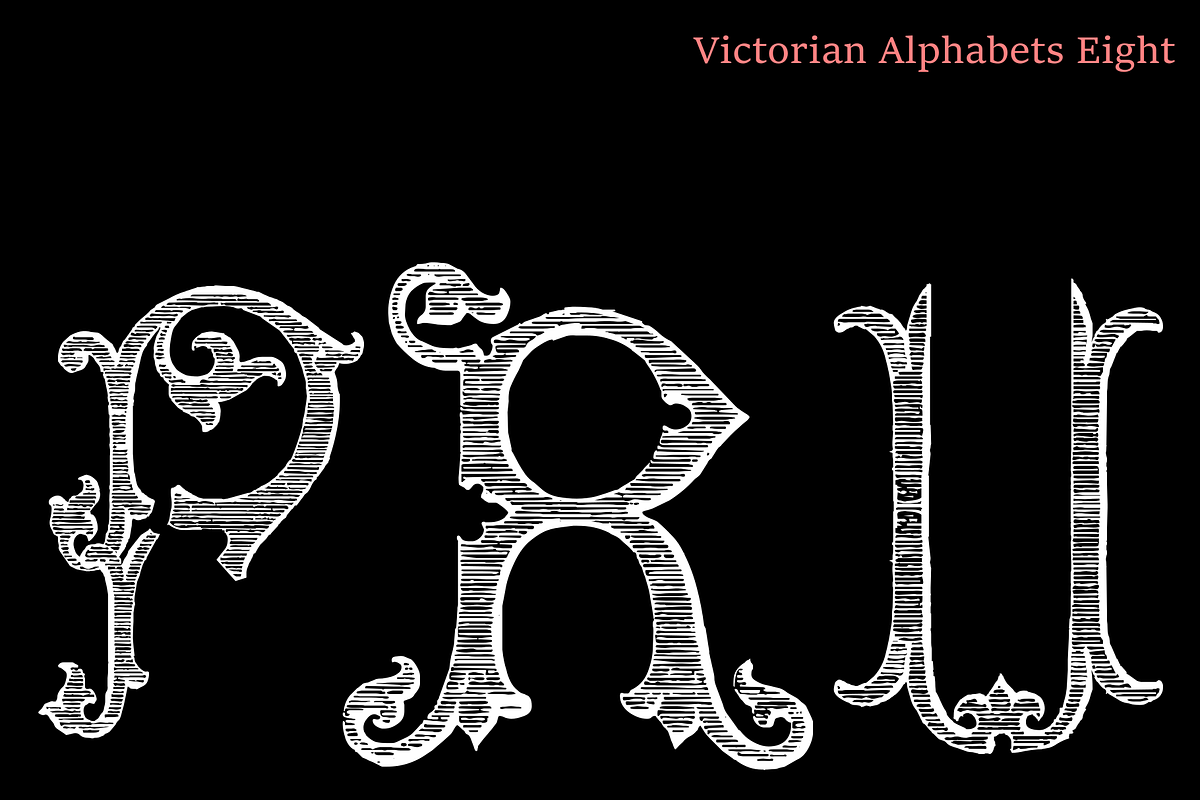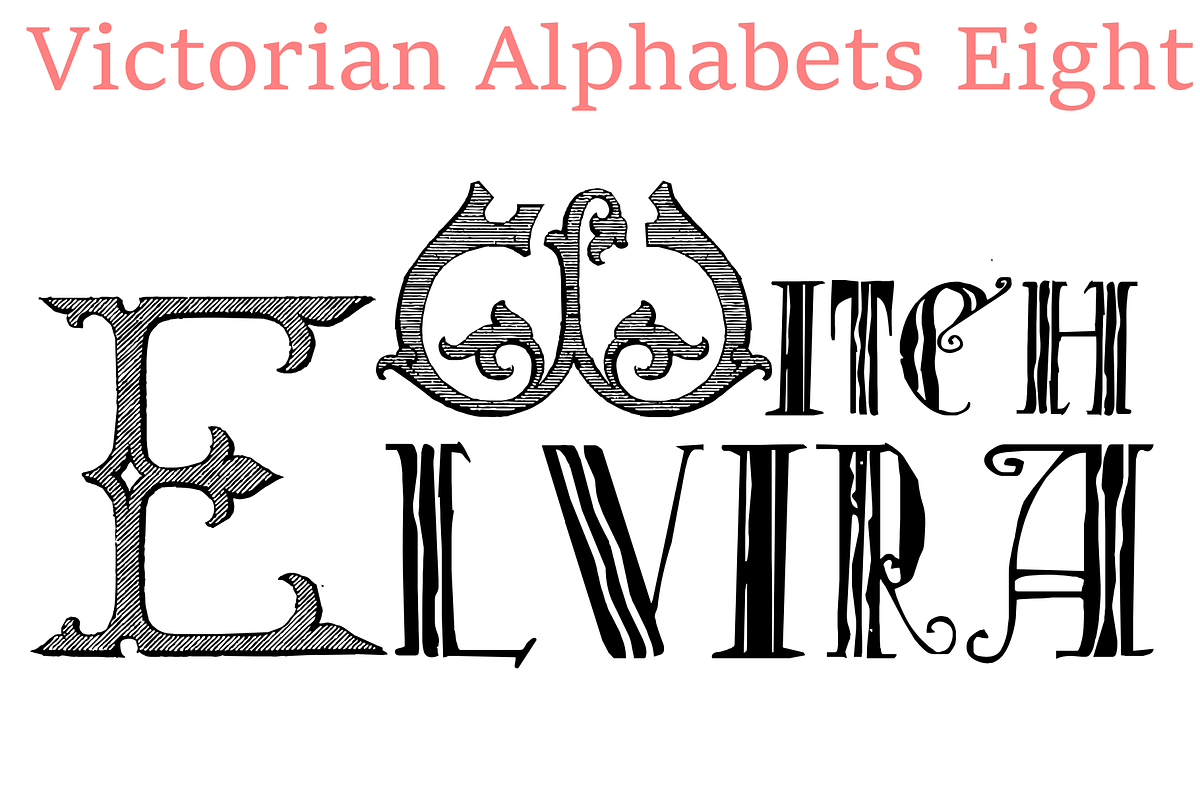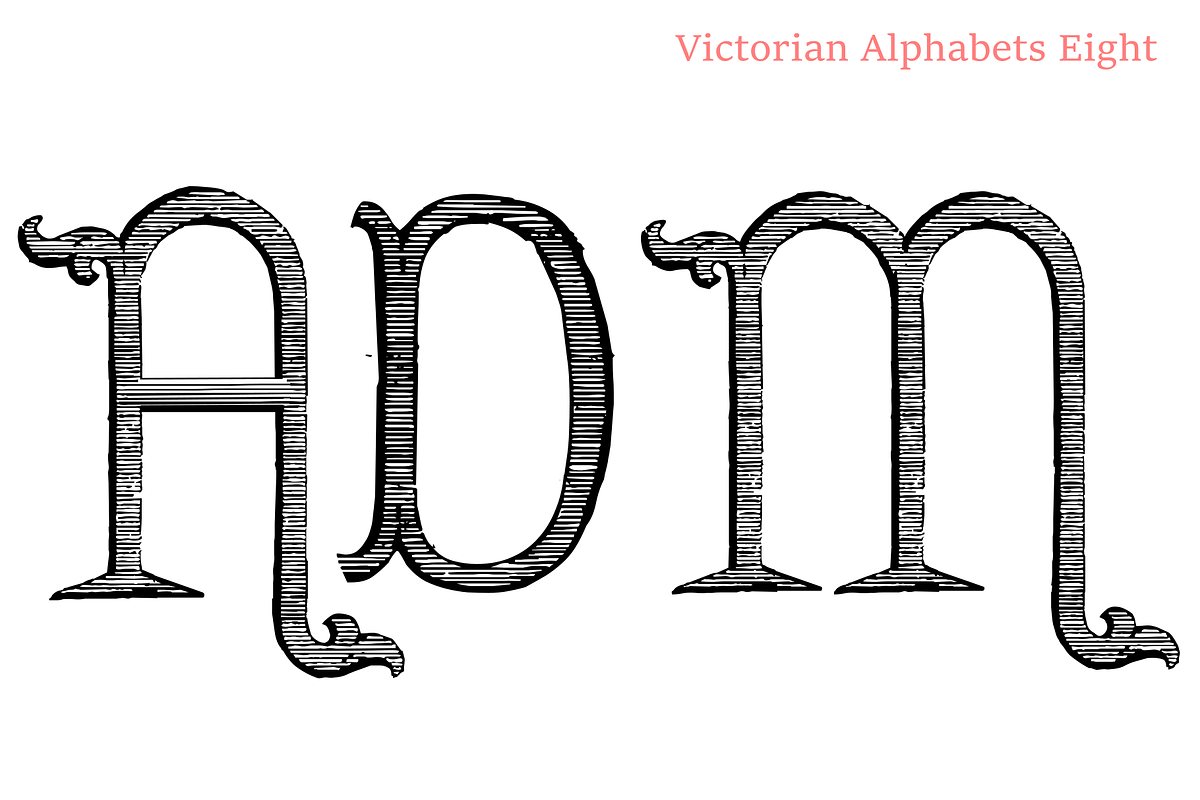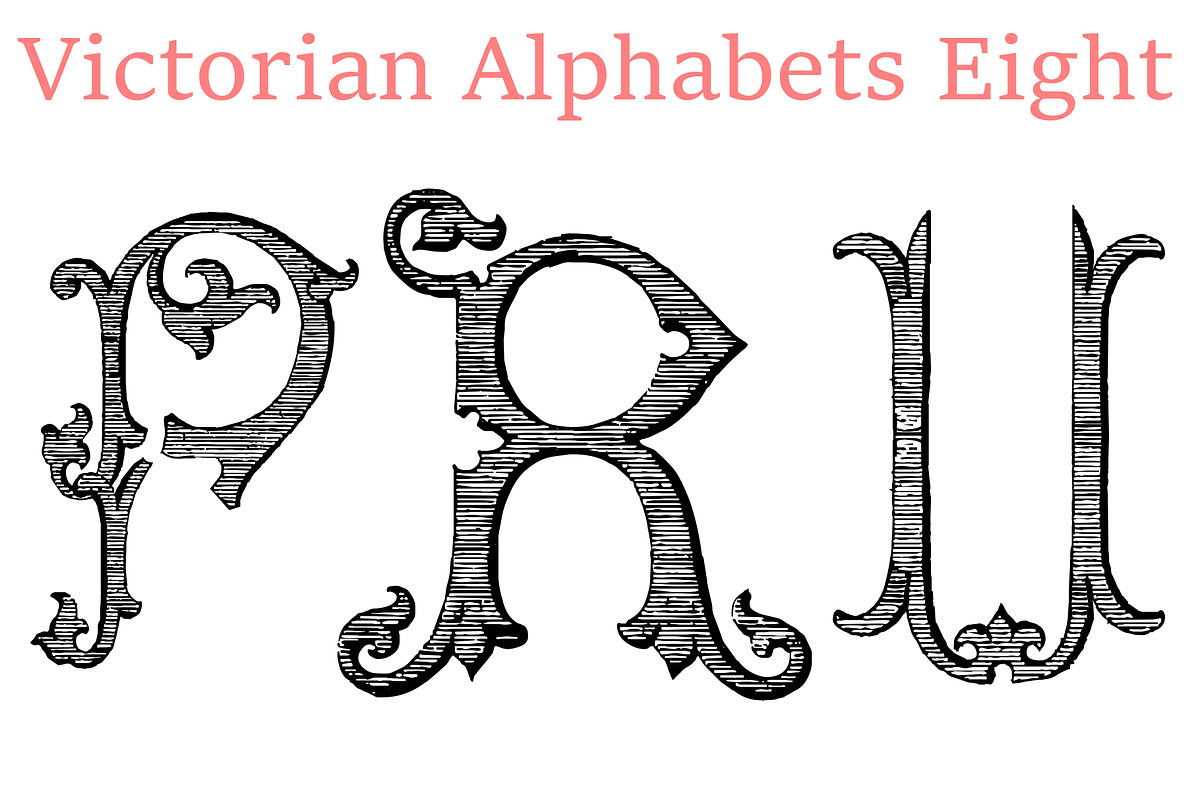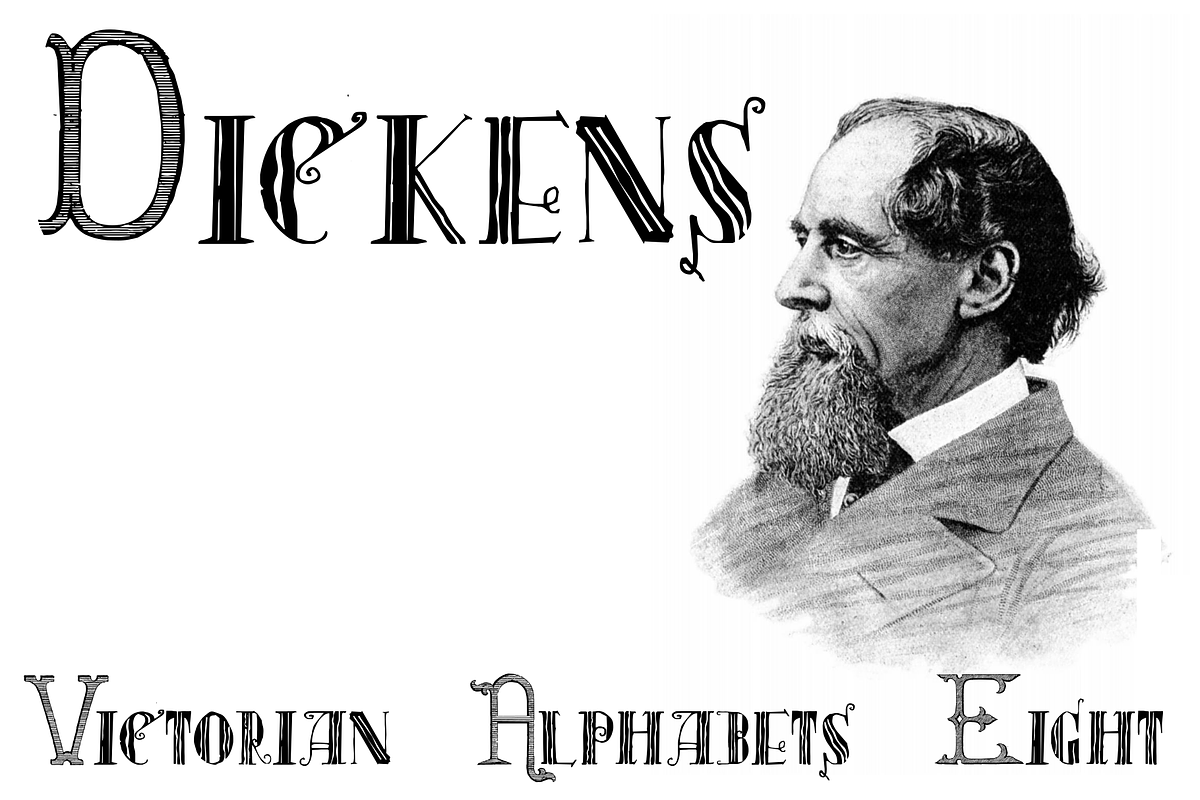
Victorian Alphabets Eight
Victorian Alphabets Eight is a distinct and imposing display font. It has a classy and elegant look that can be used for logos, branding, invitations, stationery, wedding designs, social media posts, and much more.